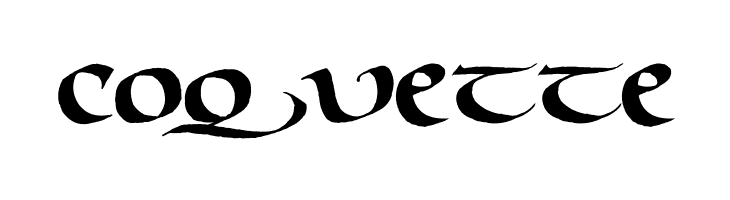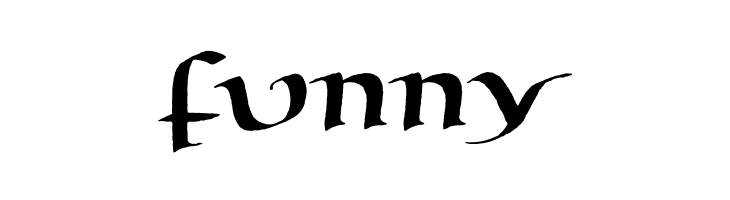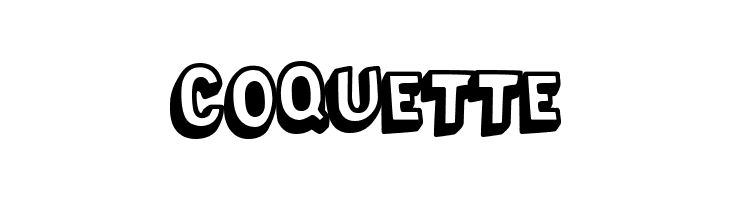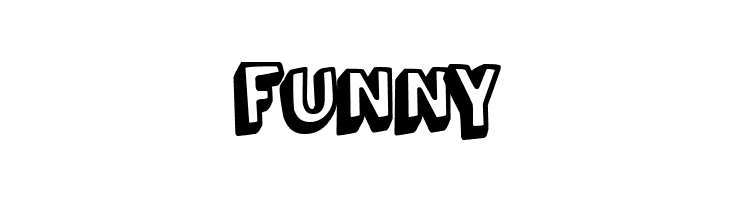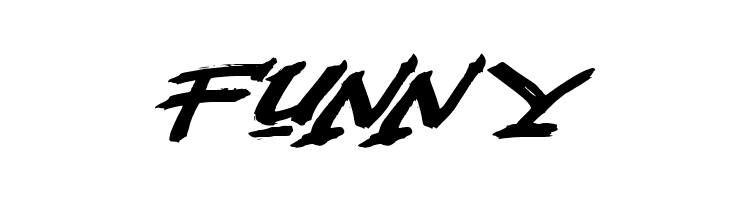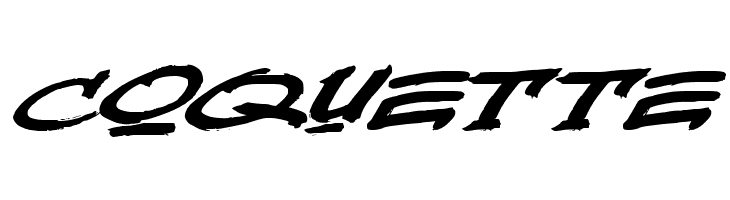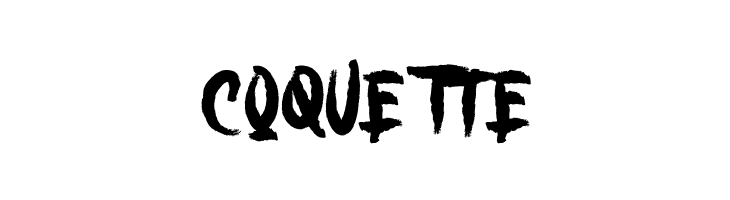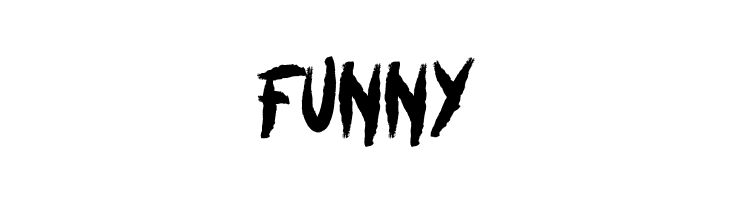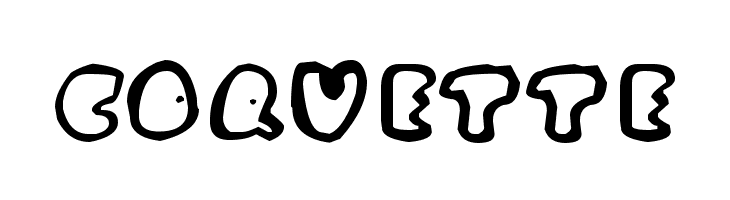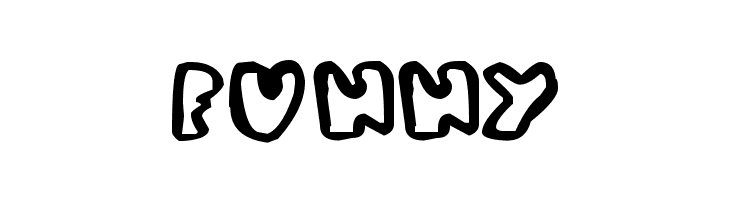
• MTF 30 Something
A bold slab serif font with strong, block-like serifs and balanced spacing.
• MTF Chunkie
A playful, heart-themed decorative font with a hand-drawn feel.
• MTF Gridie
A playful, hand-drawn font with bold, irregular strokes.
• MTF Olive You
A playful, heart-adorned font with bold, rounded characters.
• MTF Stampin Rachel
A playful handwritten font with a casual and friendly style.
• mtf_sketchie
A playful, hand-drawn font with a whimsical and artistic style.
• Murray Uncial
A bold, medieval-style font with ornate, calligraphic characters.
• Mustbrow
A bold, dynamic script font with a brush-like texture and energetic style.
• Mustbrow
A bold, dynamic script font with expressive, fluid strokes.
• My Bald Friend Fred
• My Coffee Break
A bold, playful font with a hand-drawn, informal style.
• My First Ft
A playful, casual script font with flowing, cursive letterforms.
• my font
A sleek, modern font with rounded, italicized characters.
• my font
A sleek, modern font with rounded, slanted characters.
• My Mom´s Font
• My Mom's Font
A playful, handwritten font with decorative, flowing strokes.
• Myra4FCaps